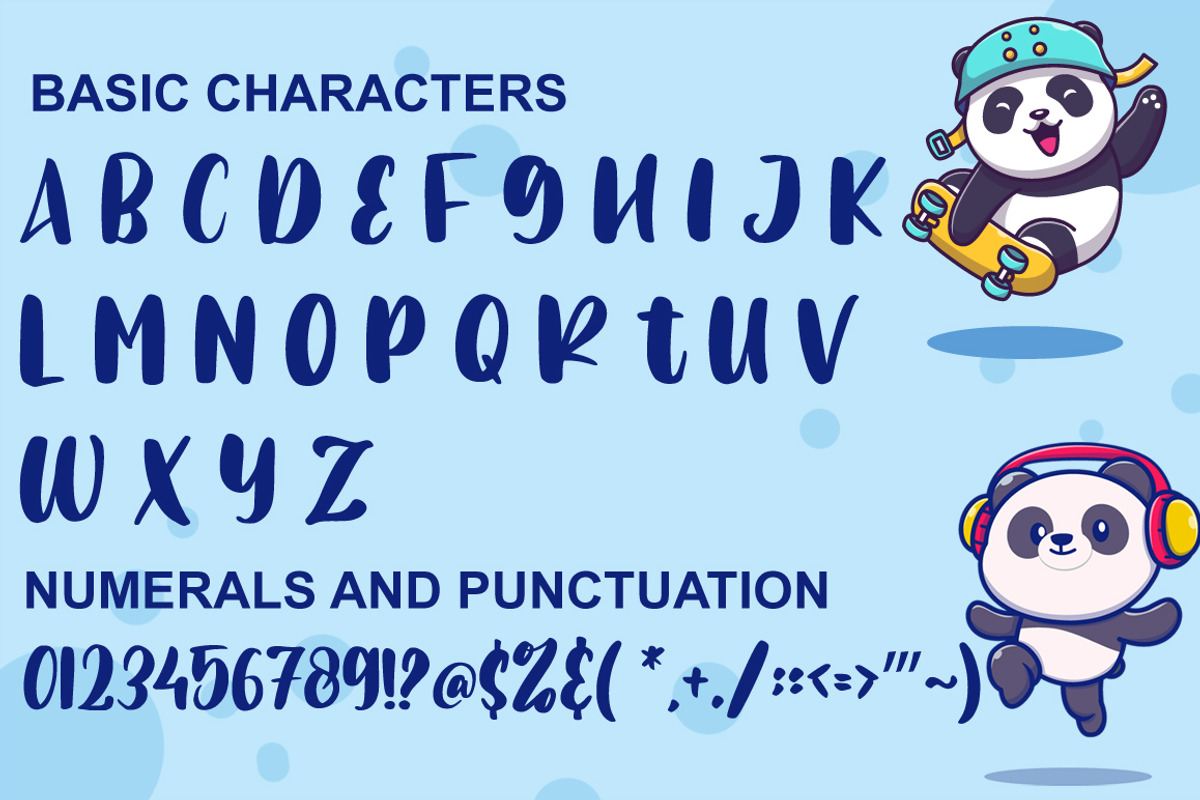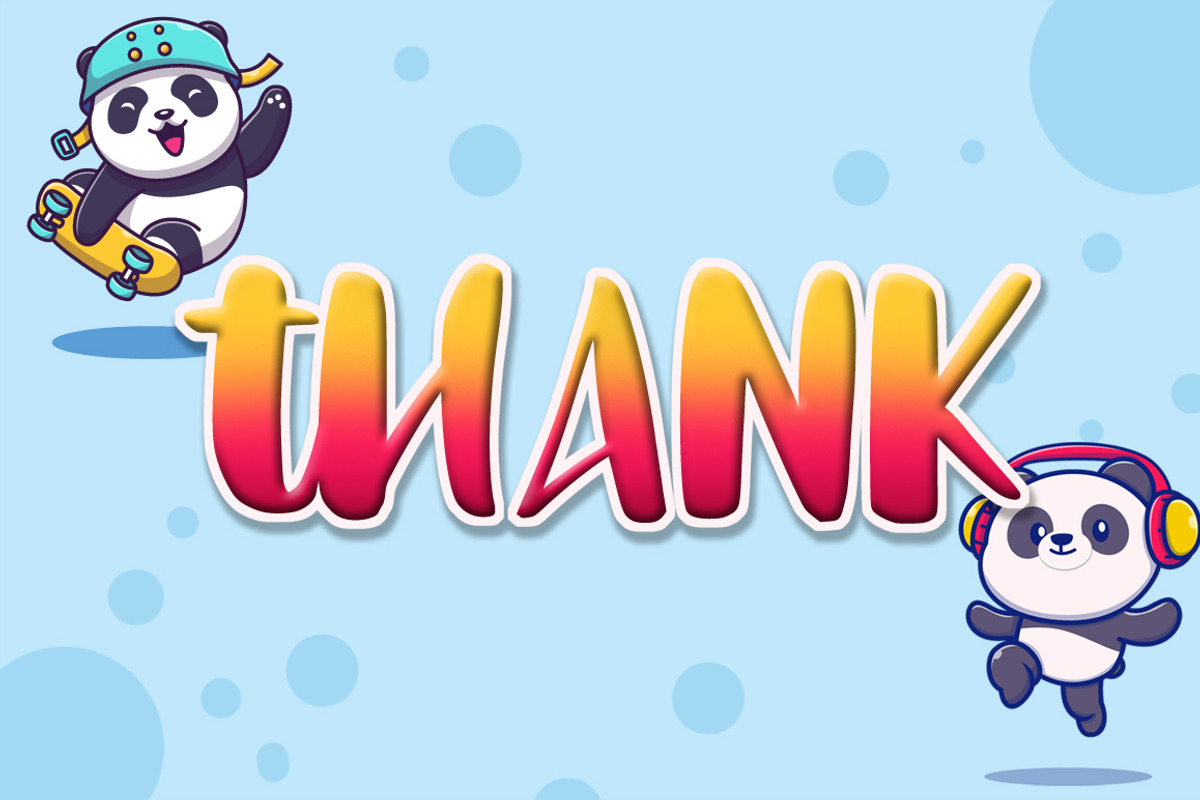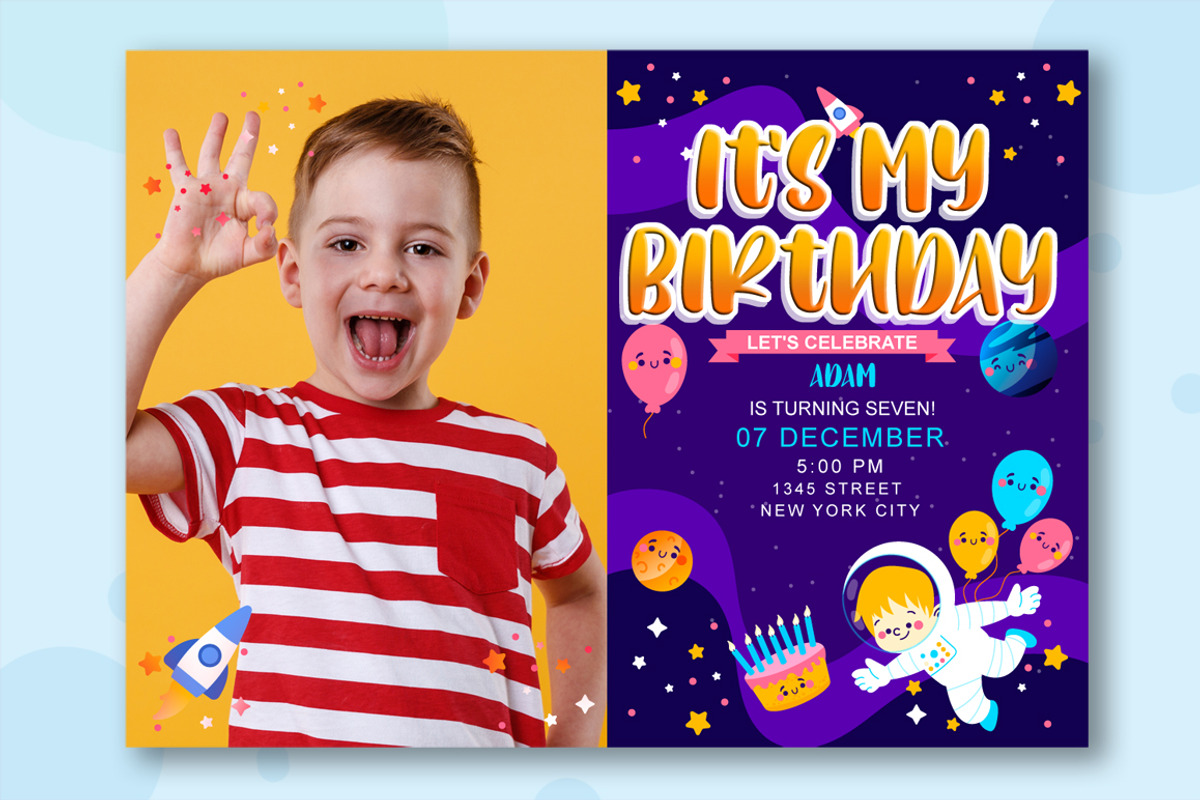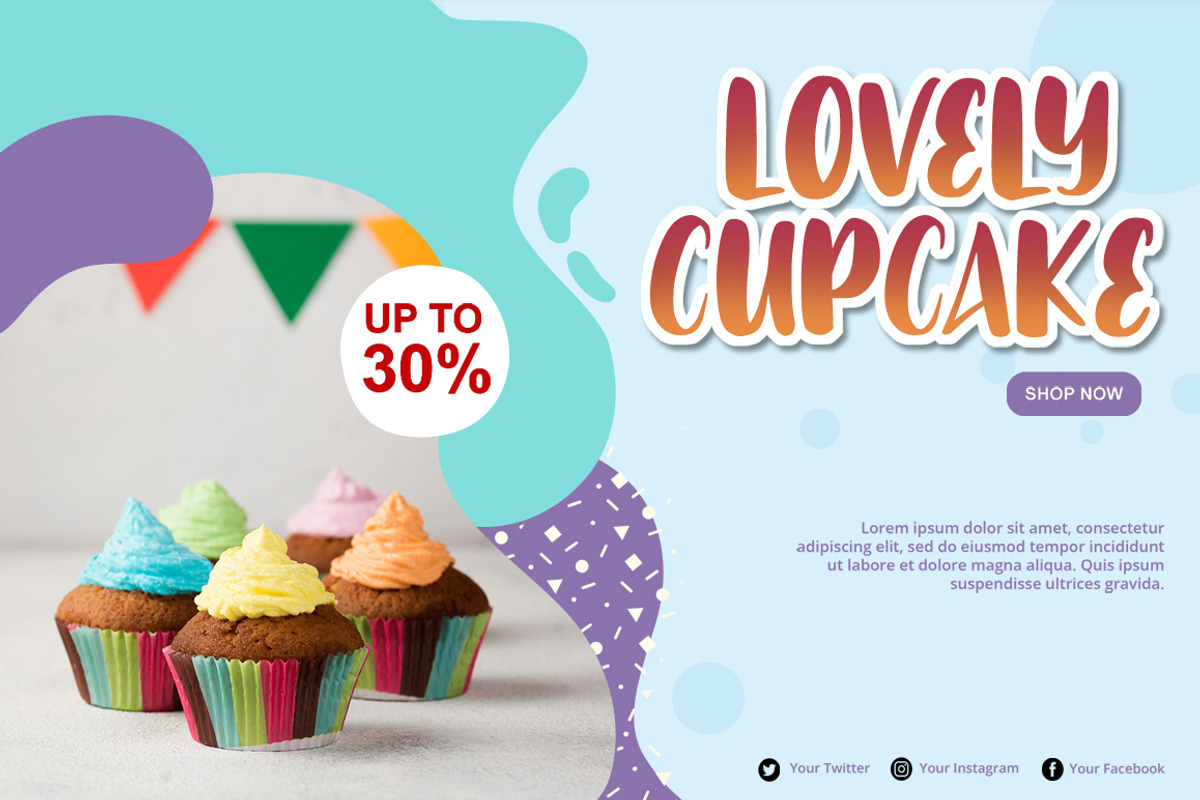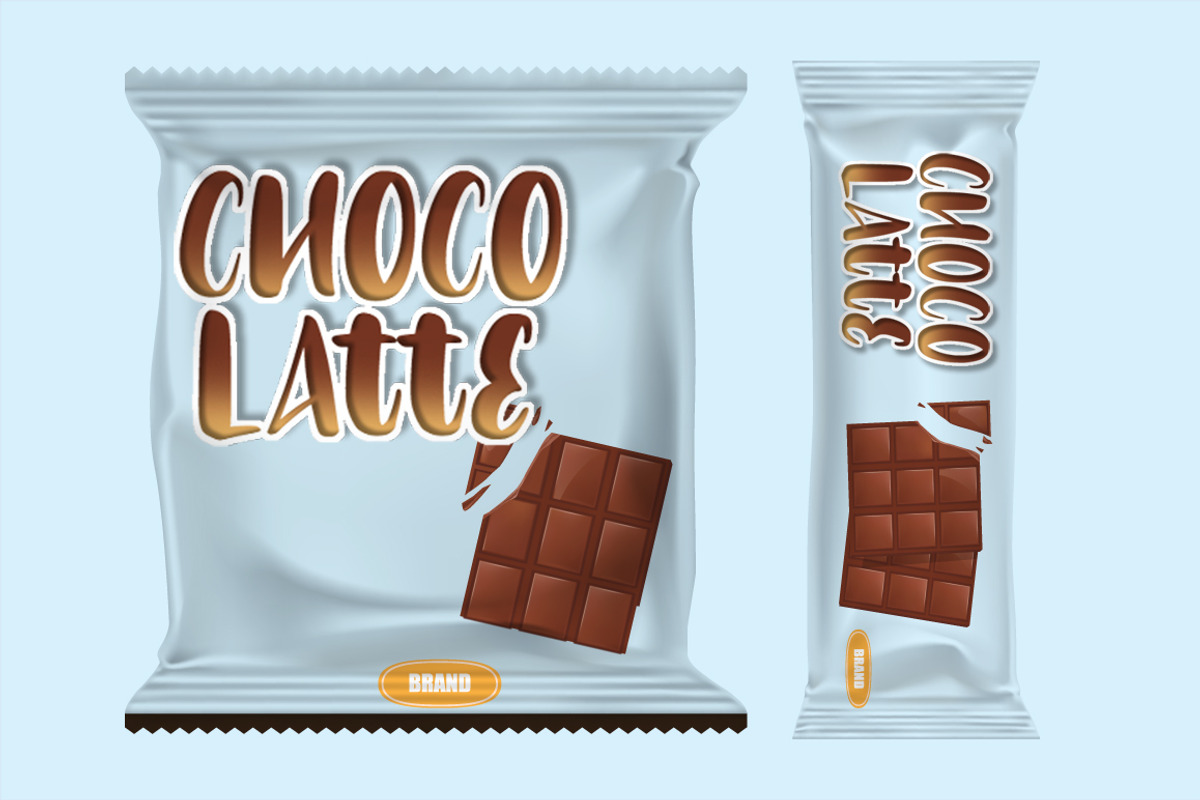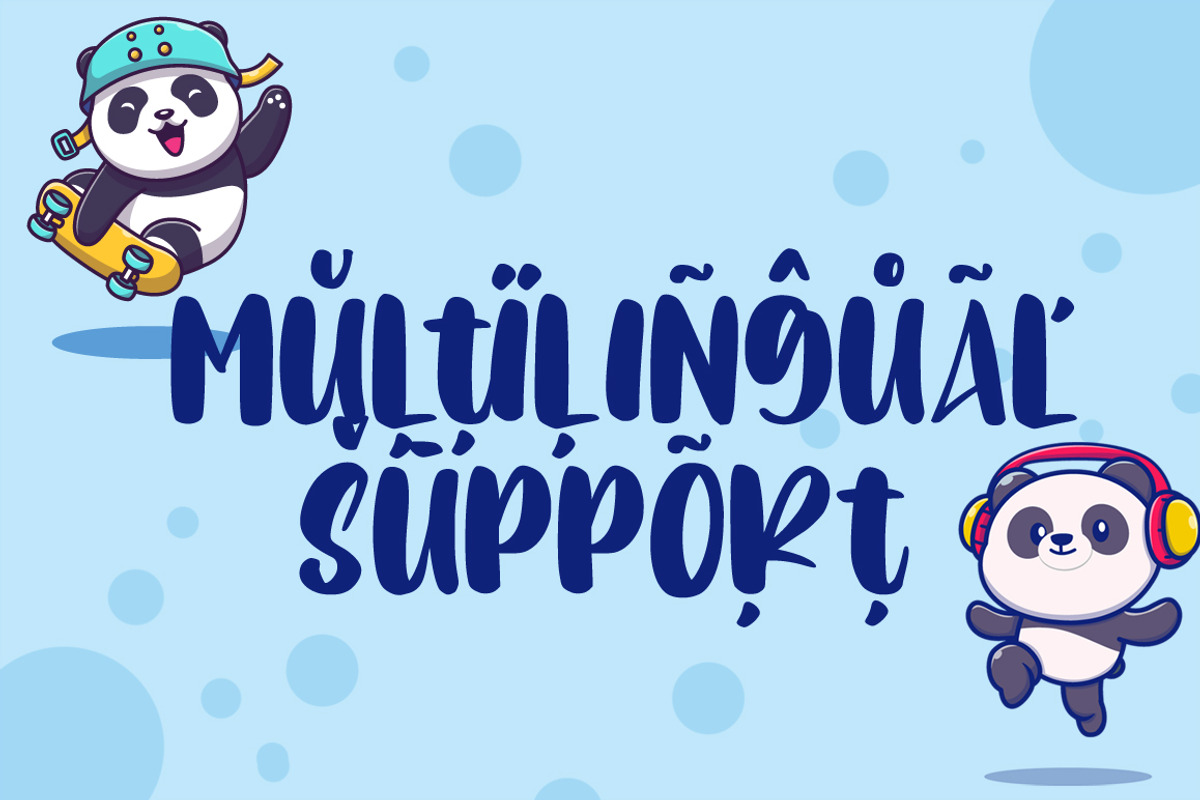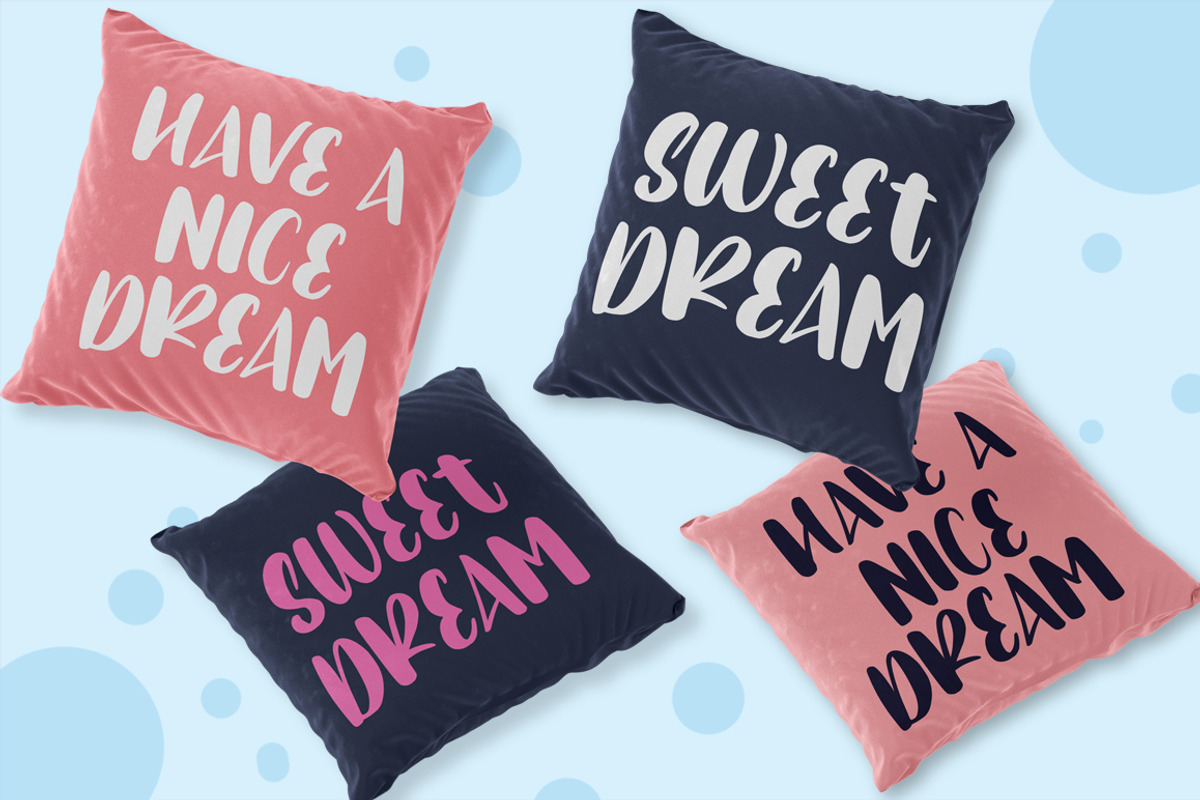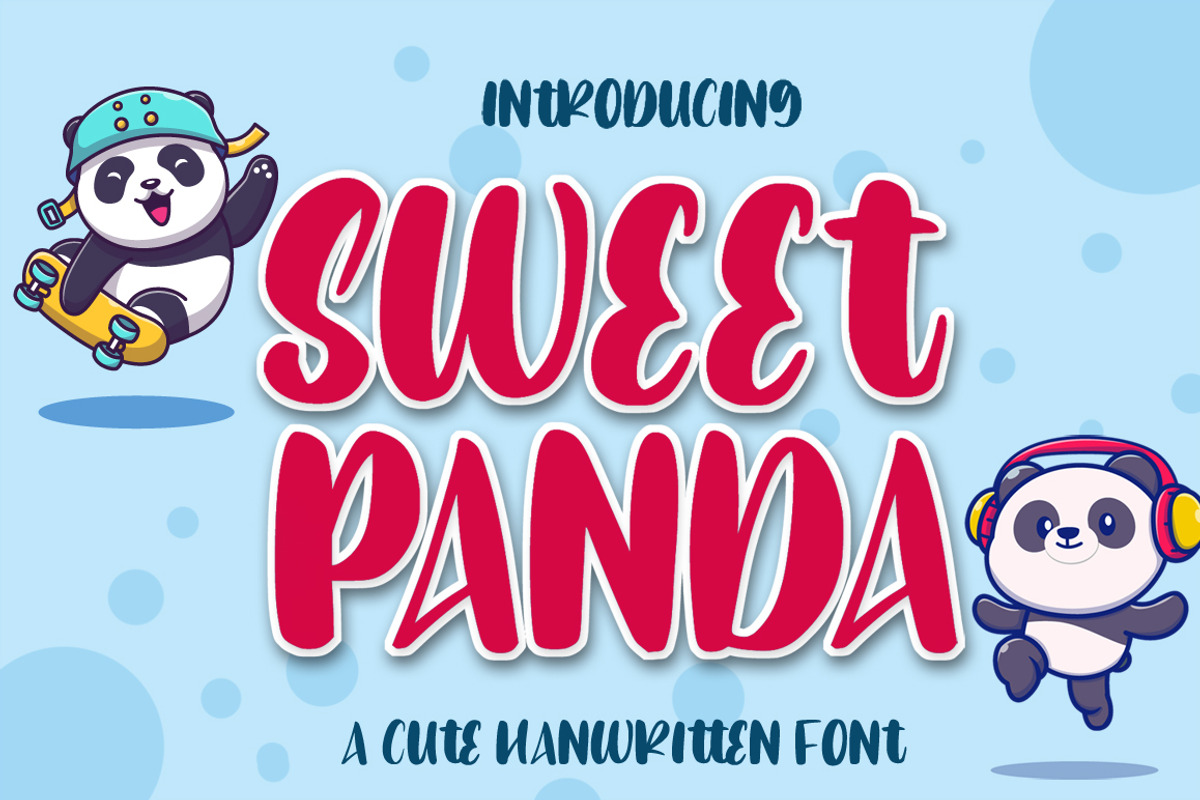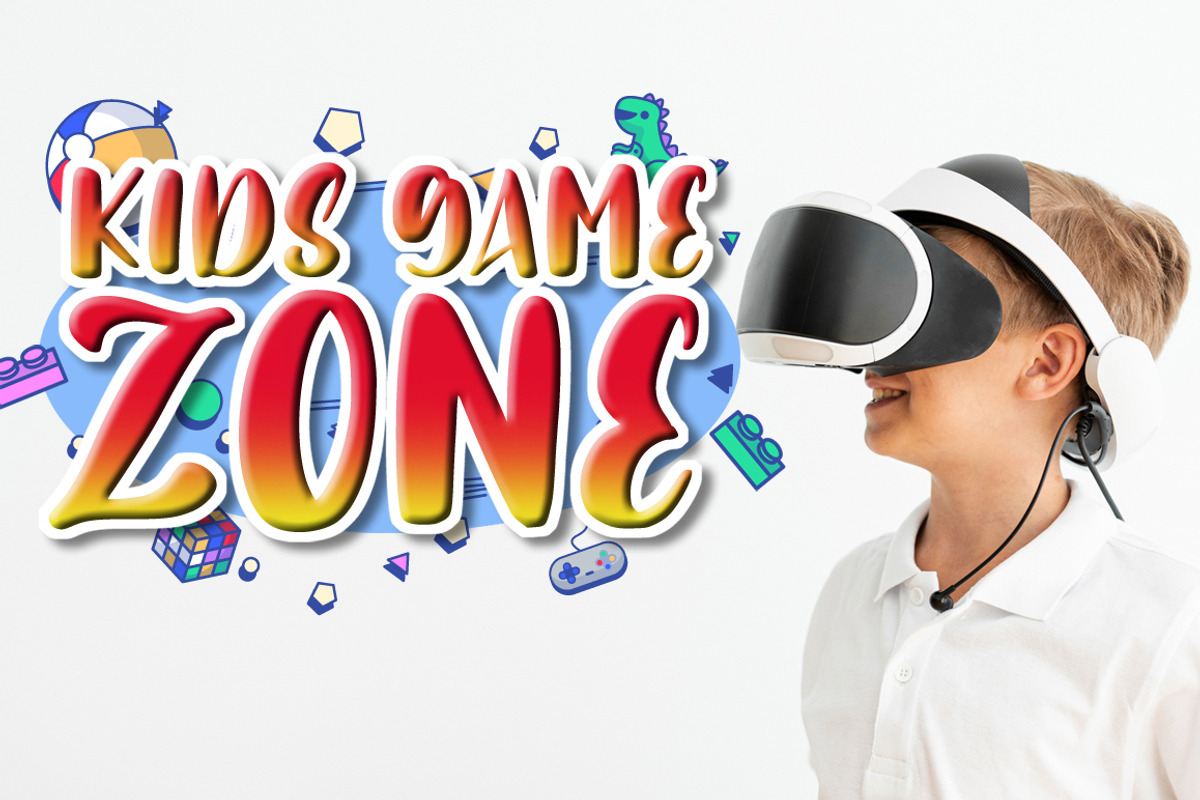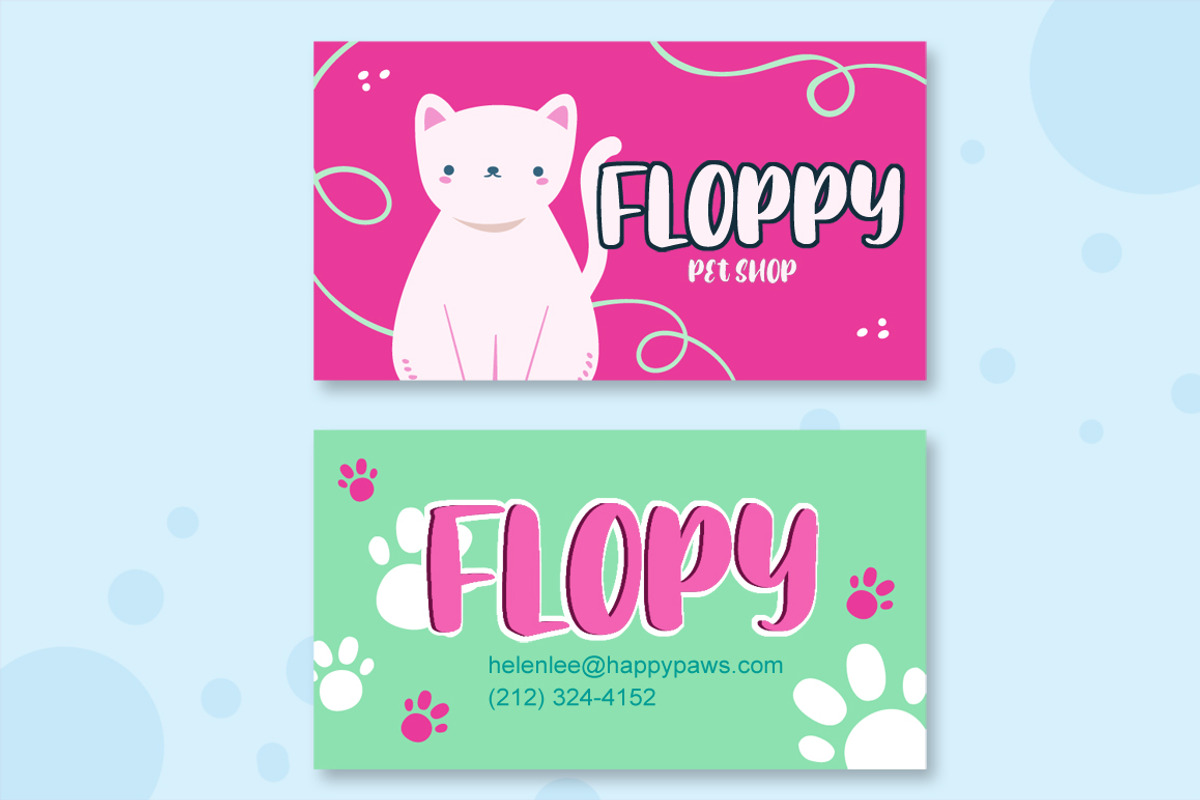
Sweet Panda - Cute Font
Sweet Panda is a cute and quirky display font. It will add an incredibly fun and trendy touch to your designs. This font is perfect for children themed designs, especially when combined with bright colors.